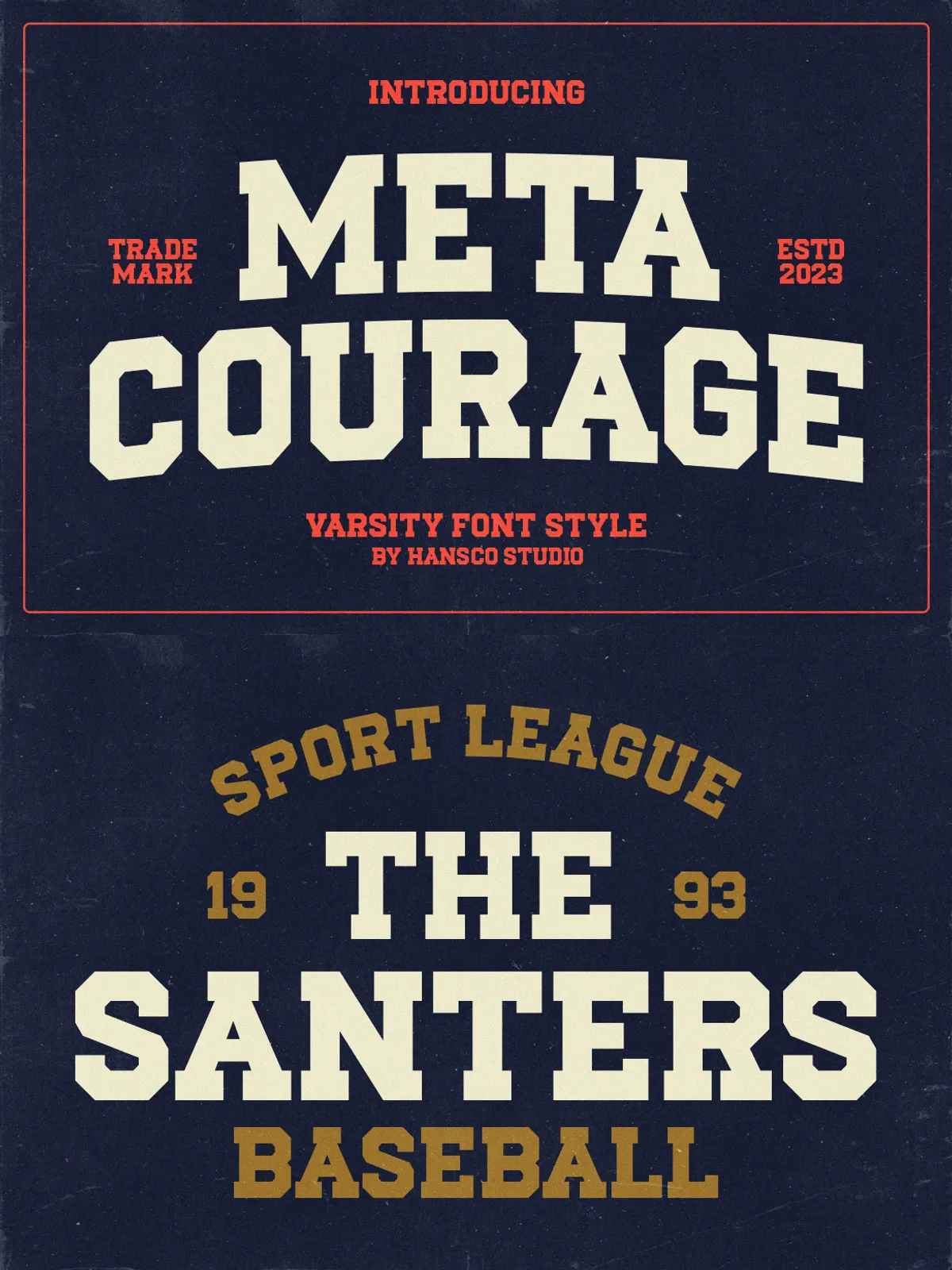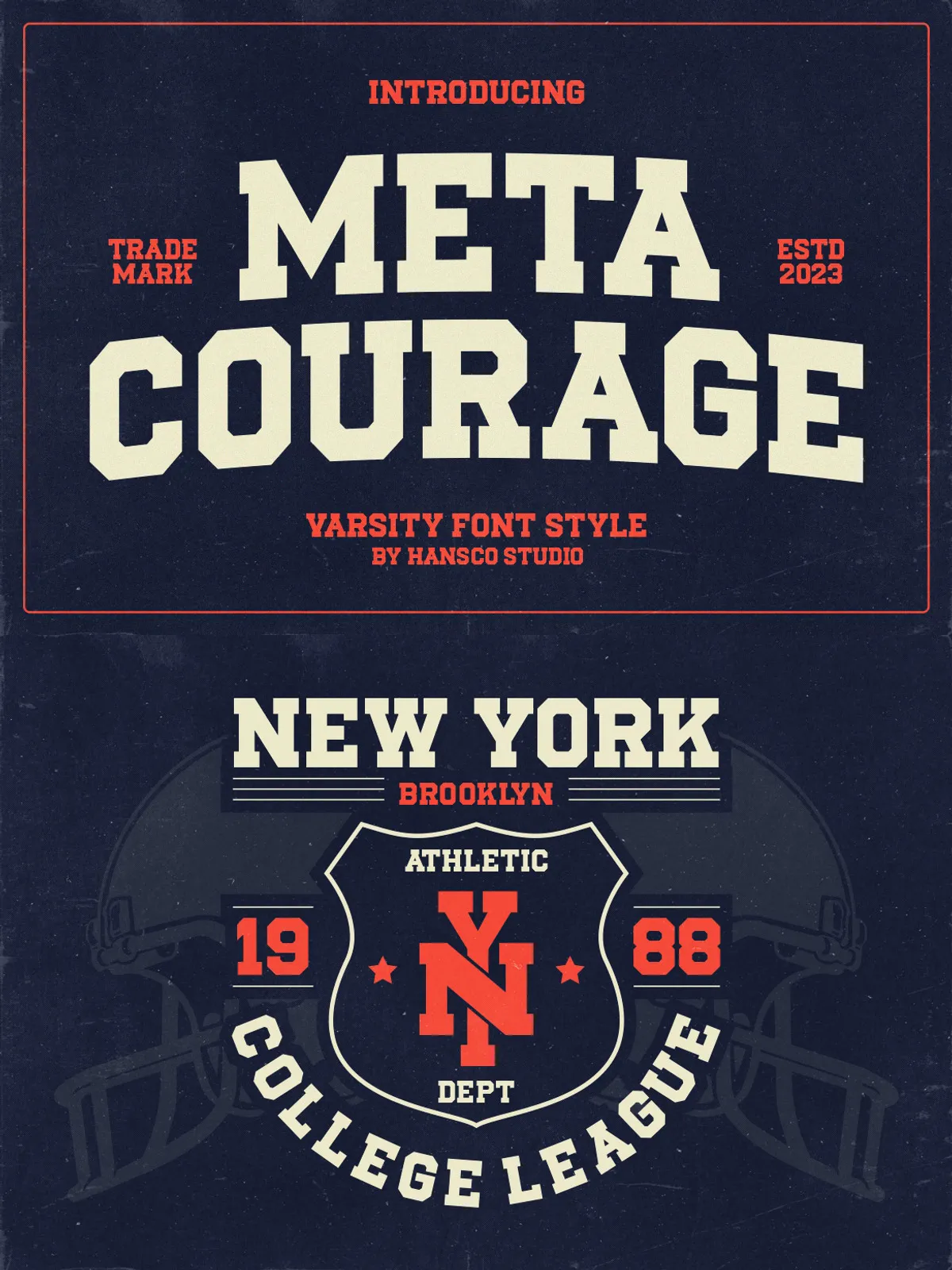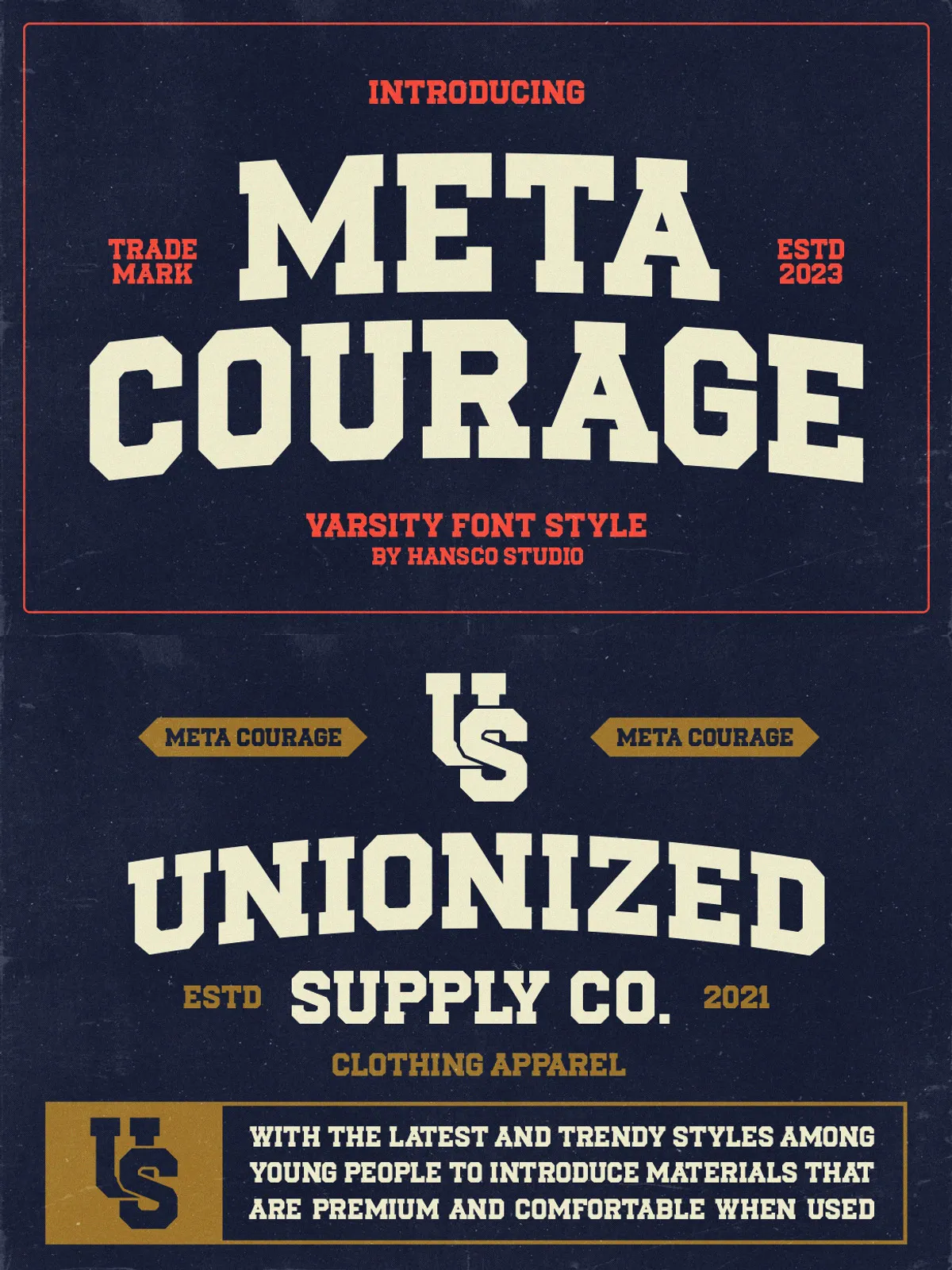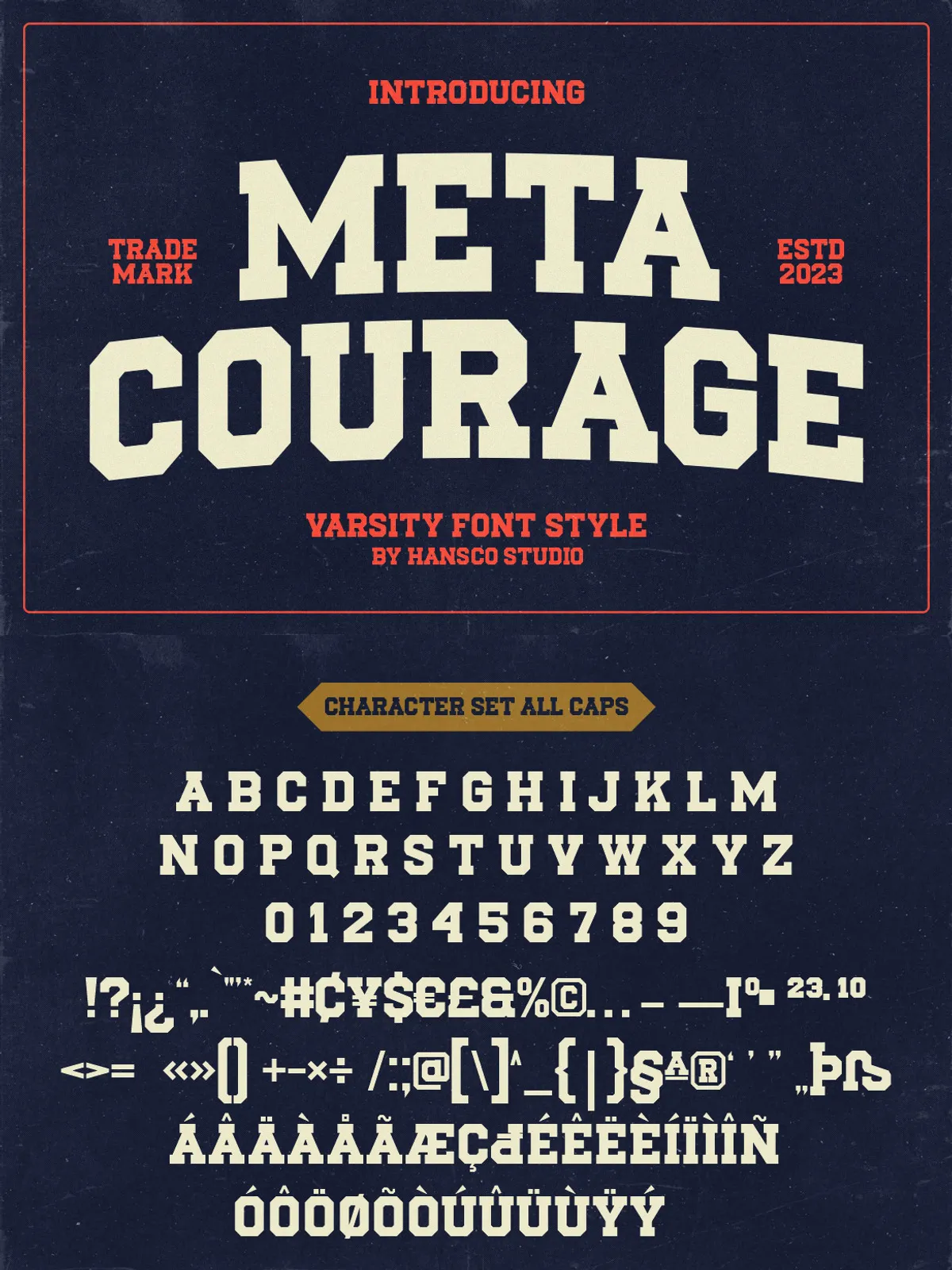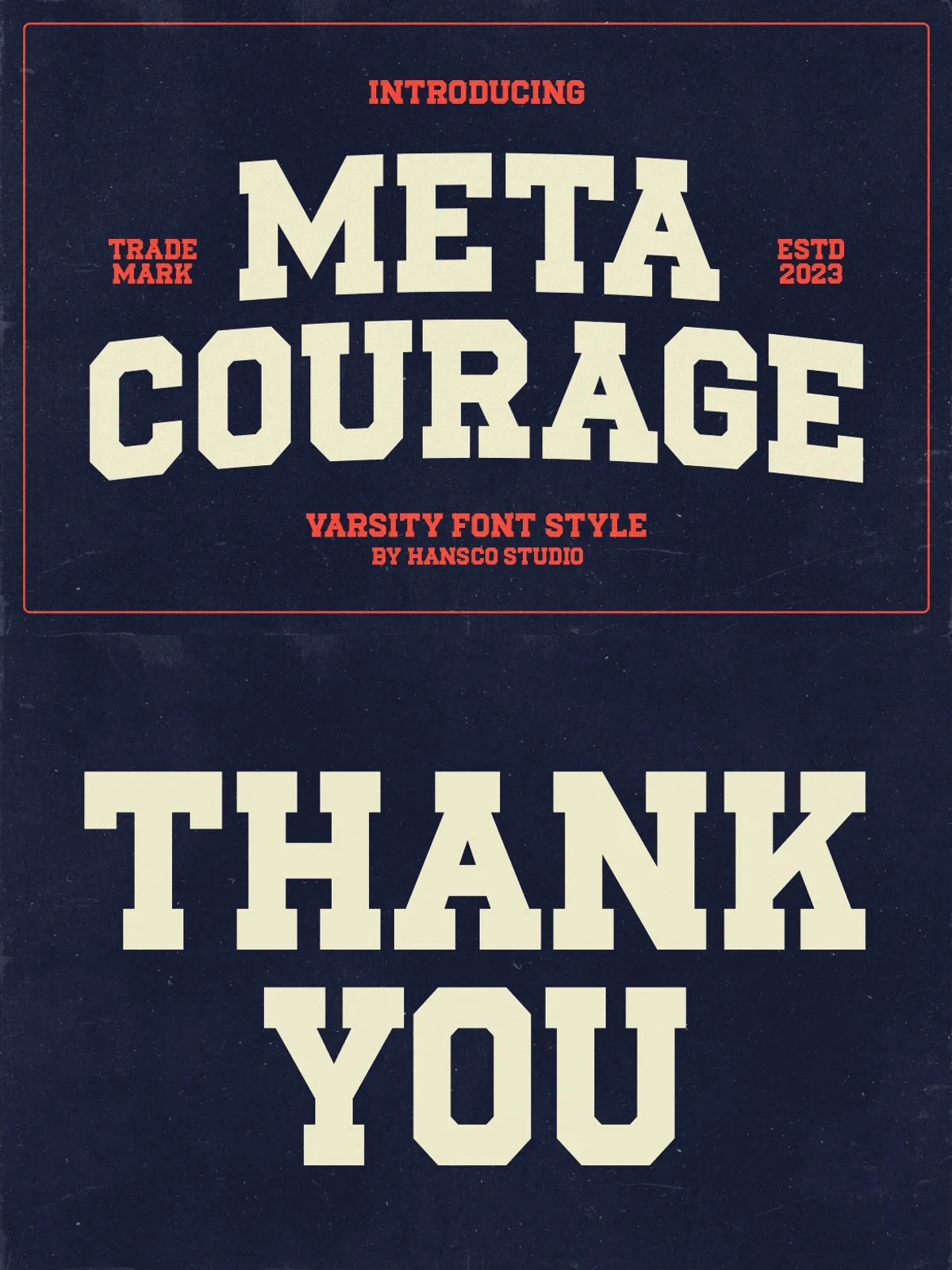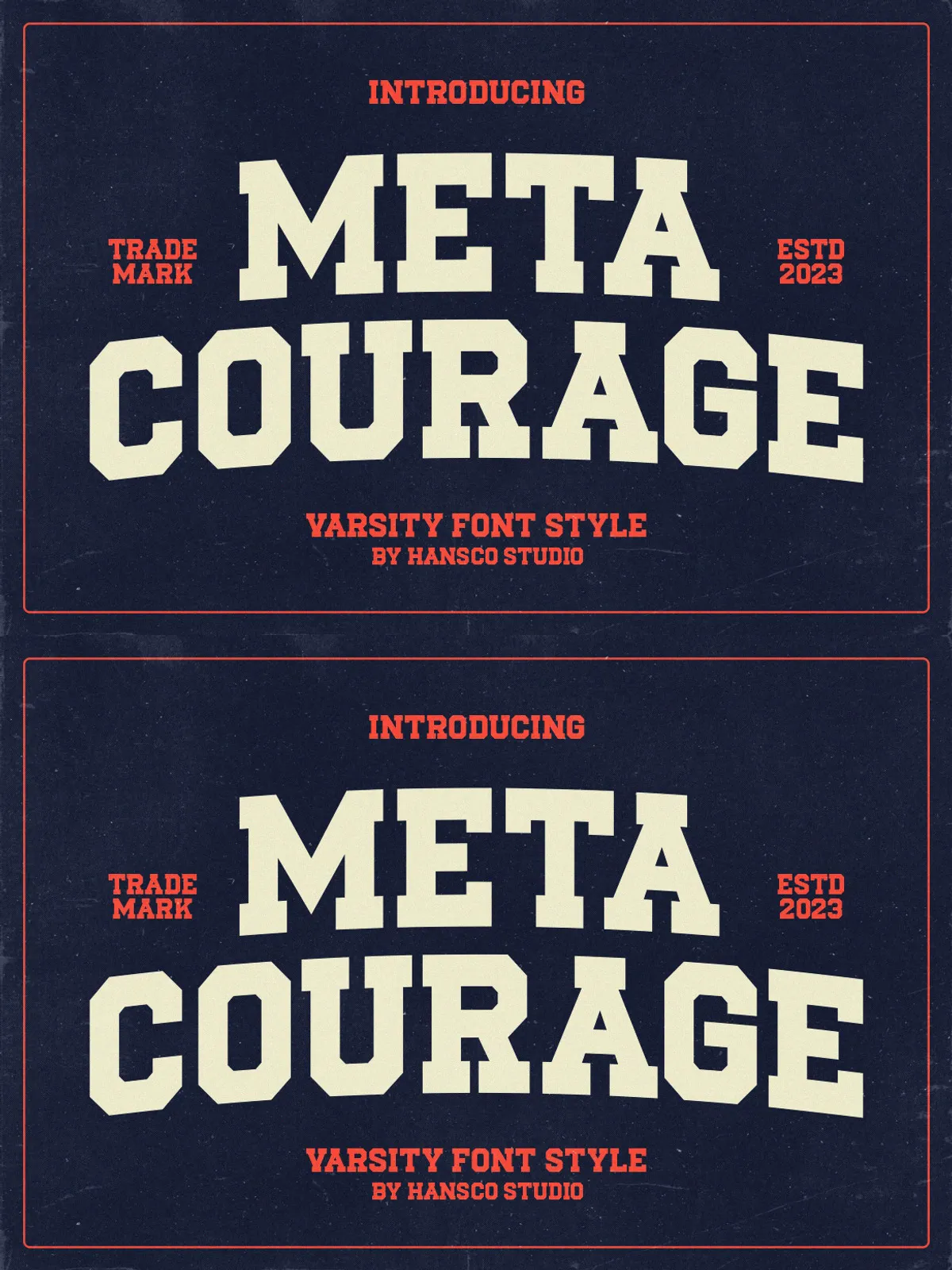
Meta Courage is a Varsity / Jersey display font. Elevate your design projects to new heights with our premium digital fonts tailored for Canva and Cricut users. Don’t settle for ordinary fonts when you can make your designs extraordinary. Unlock your design potential and grab our digital font product today. With our fonts, you’re not just designing; you’re crafting experiences, sparking emotions, and leaving a lasting impact. Get started and let your creativity flow like never before!